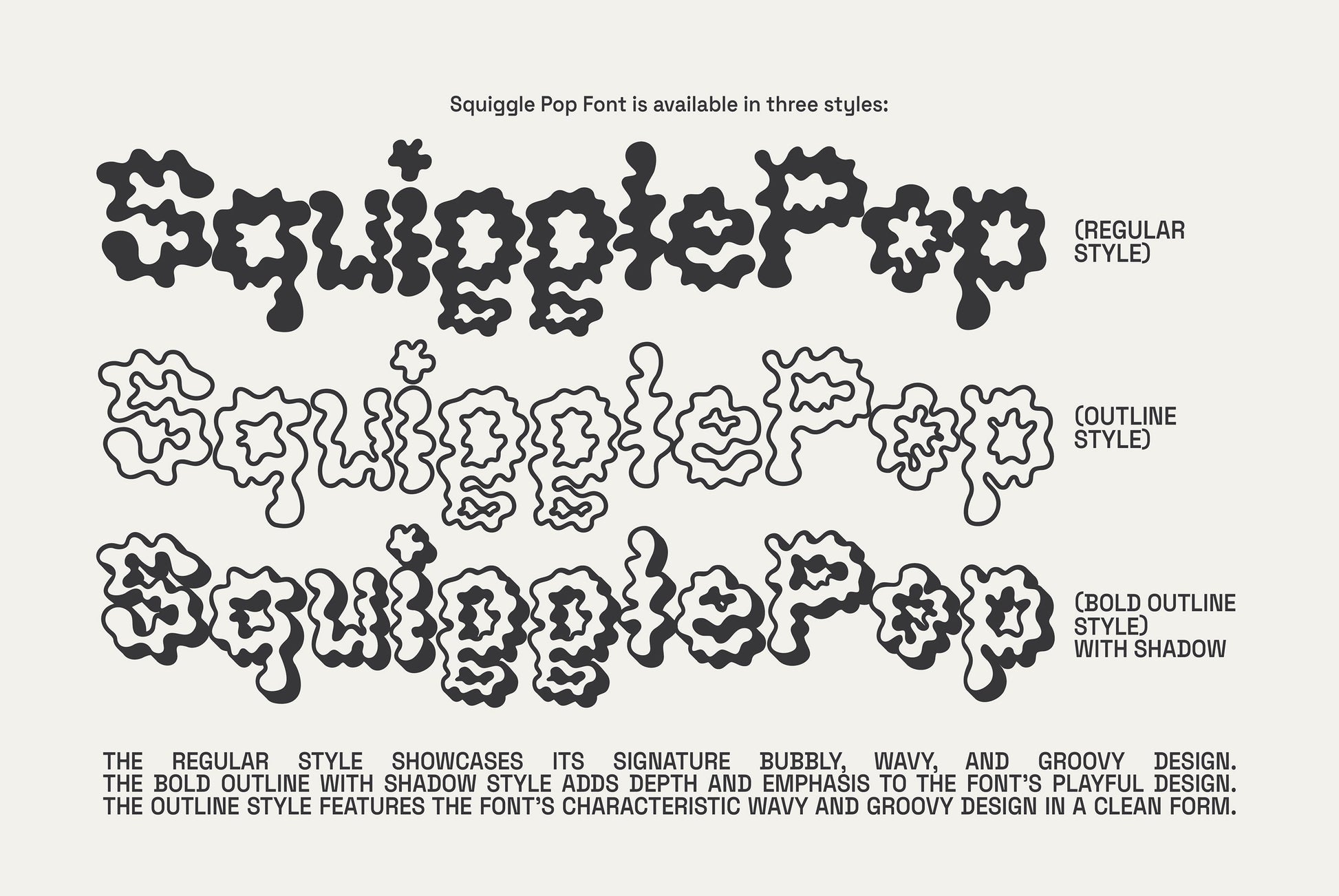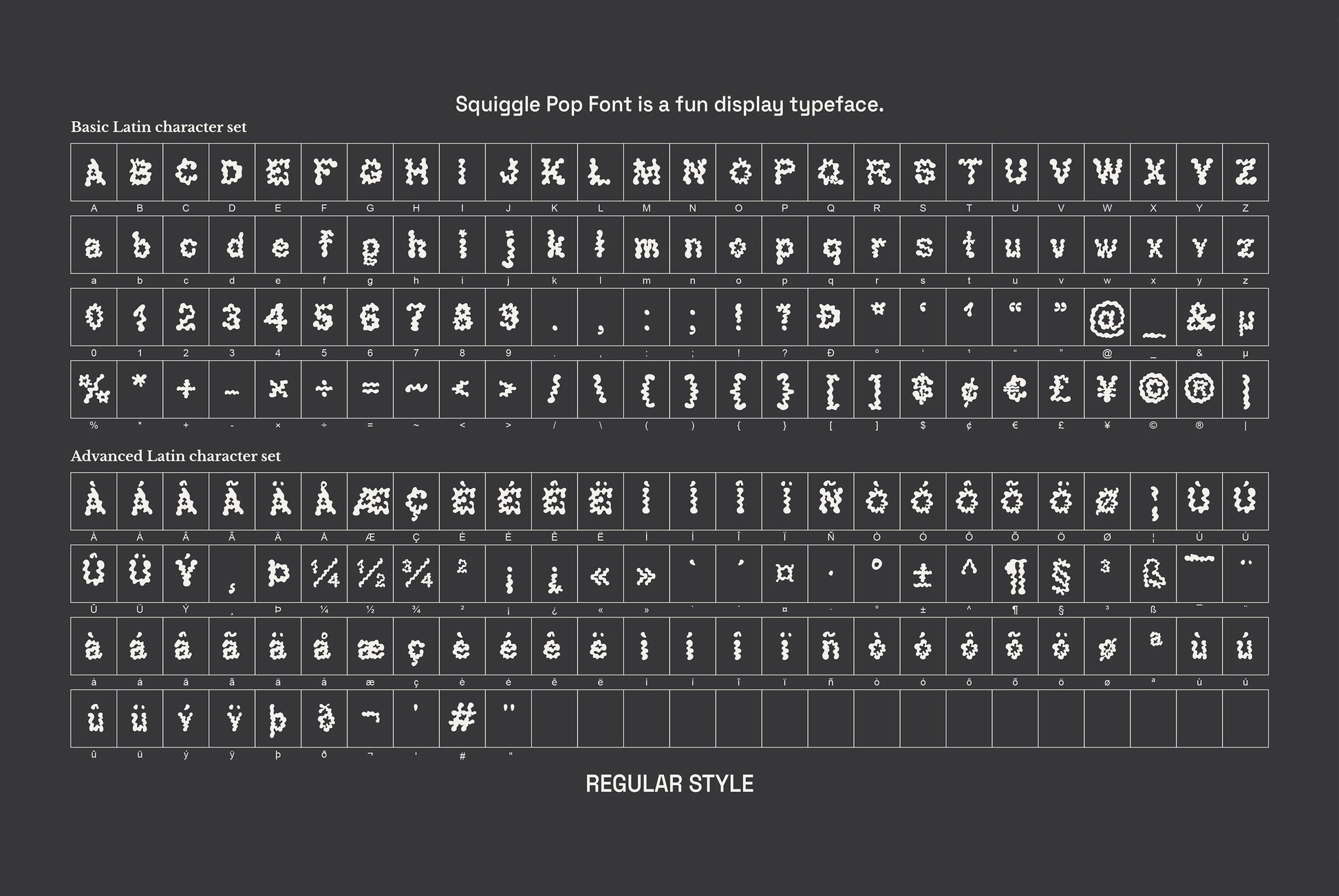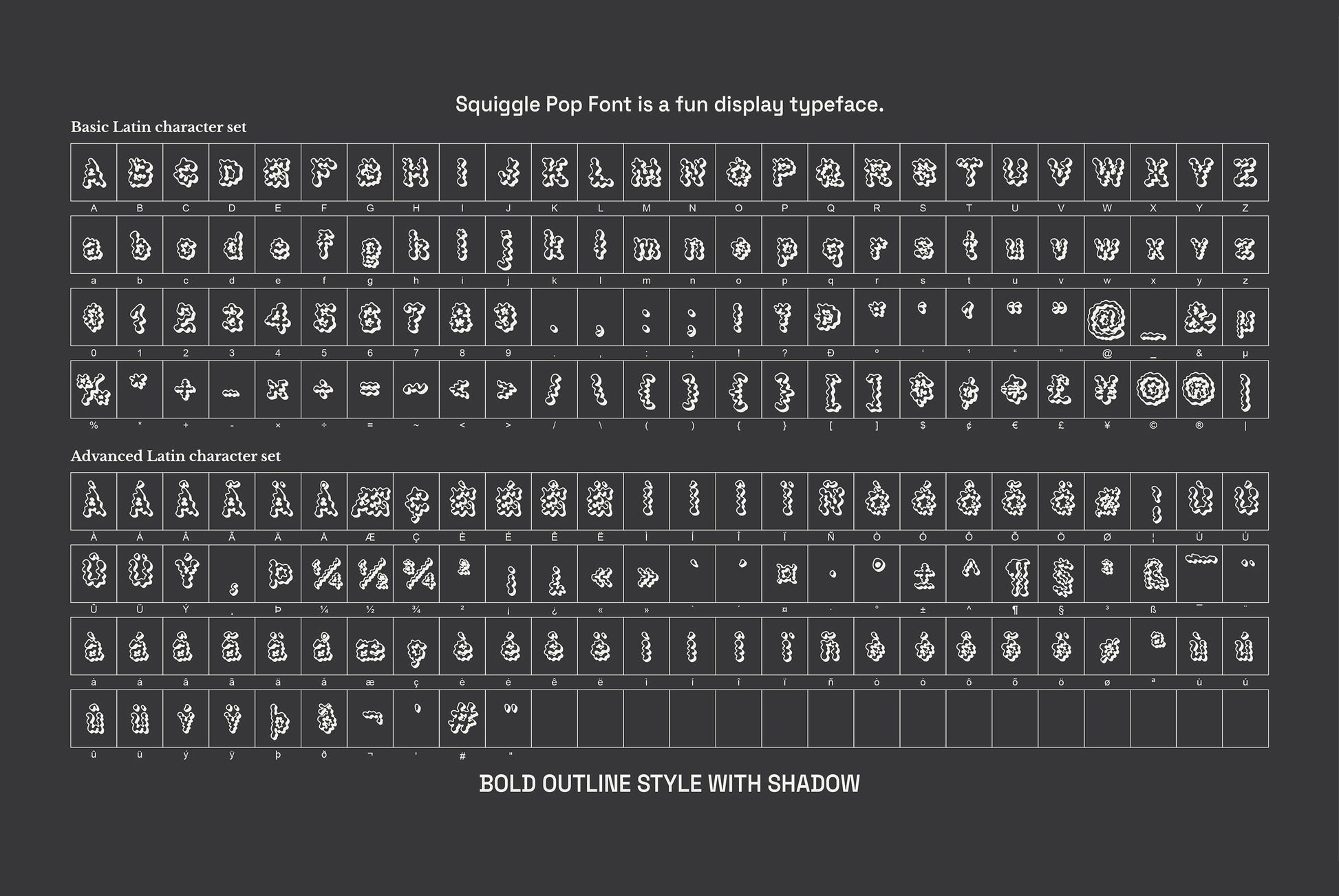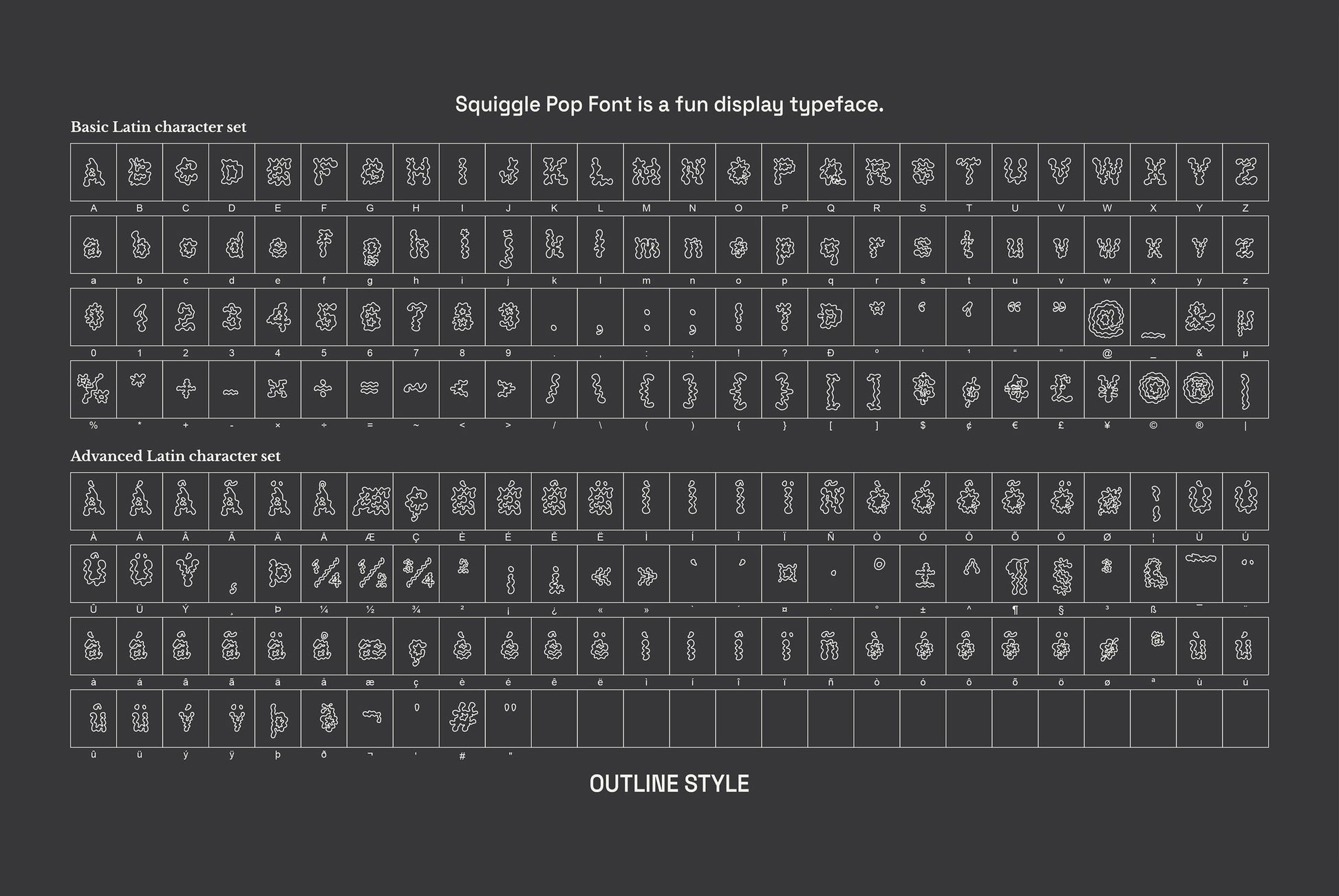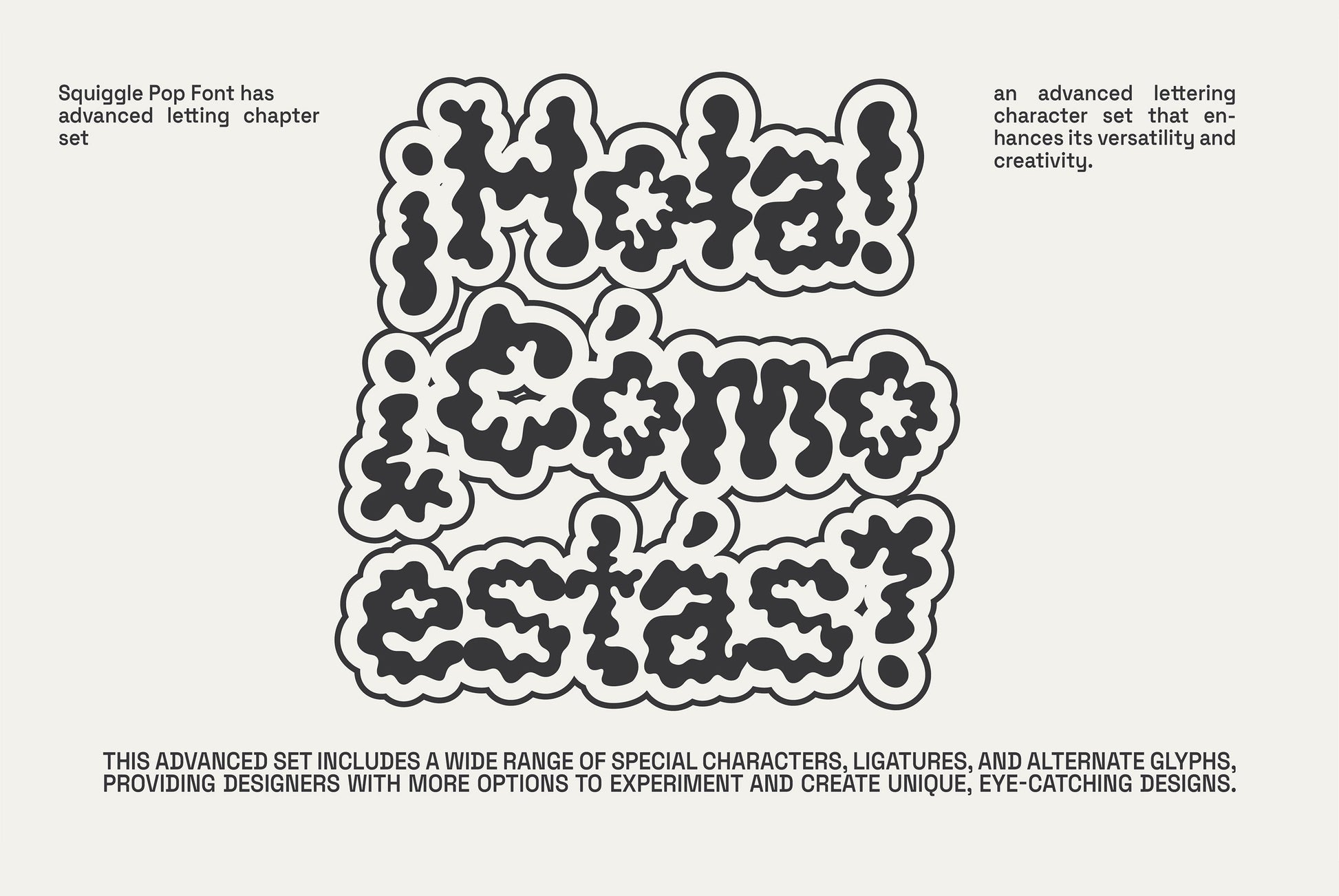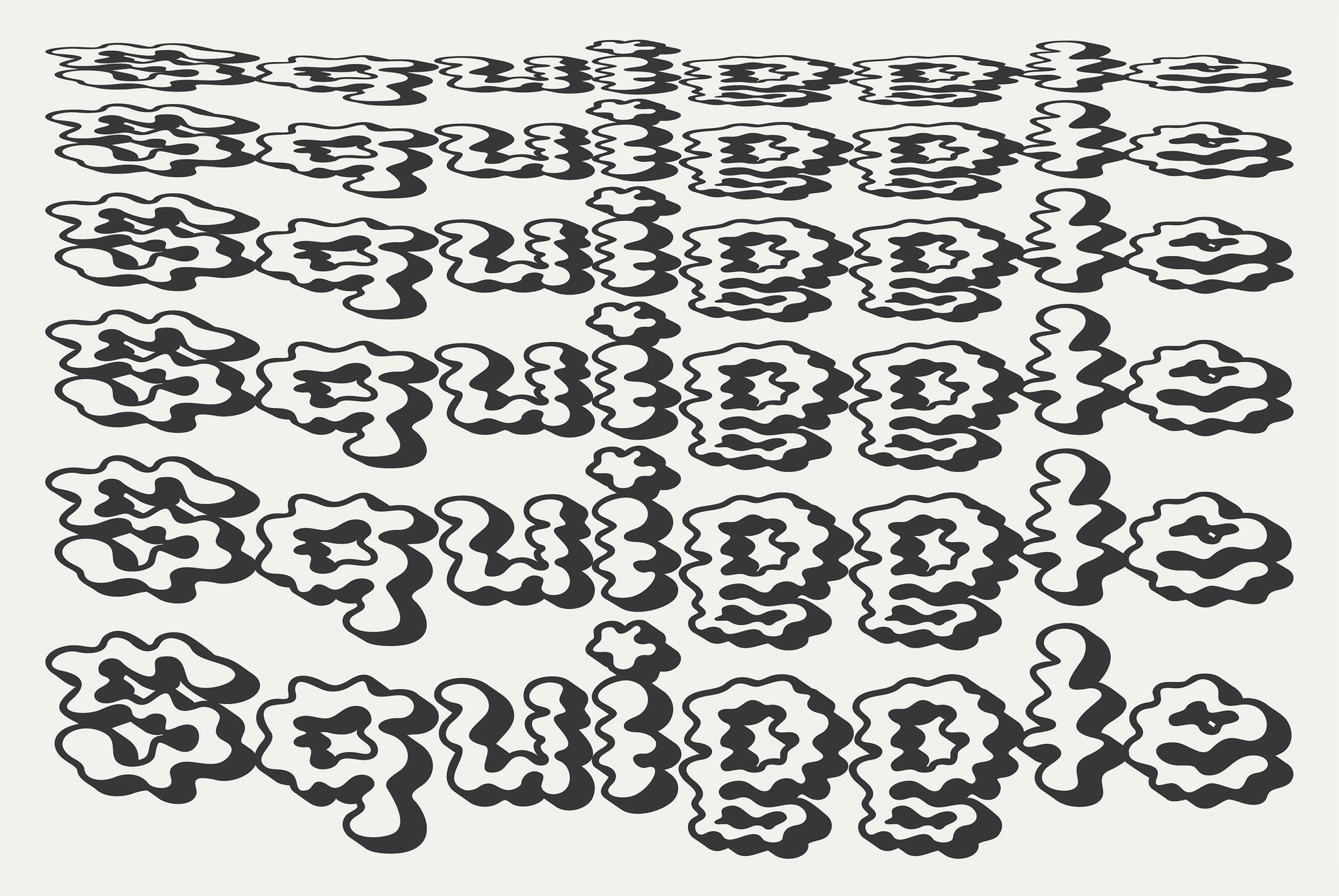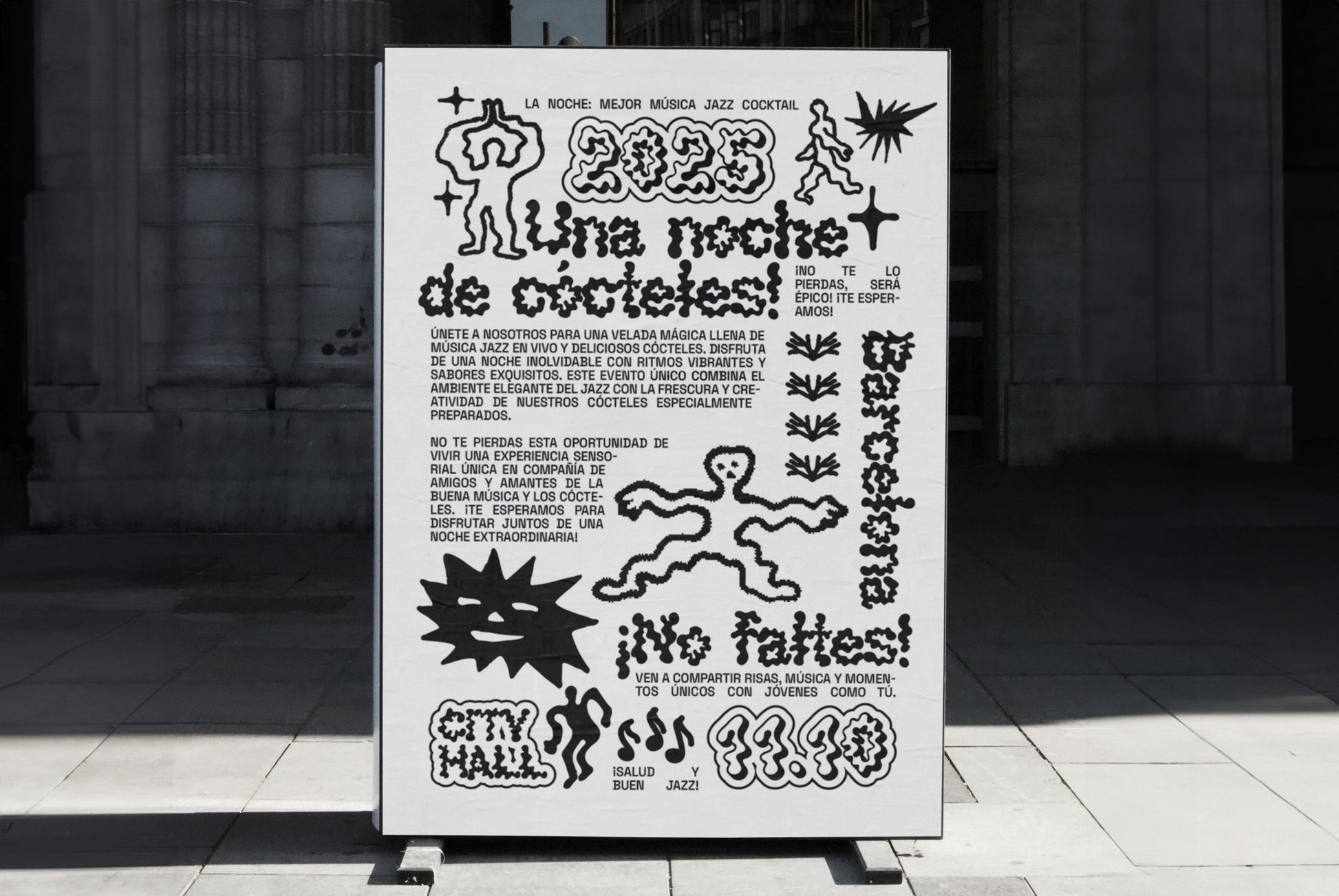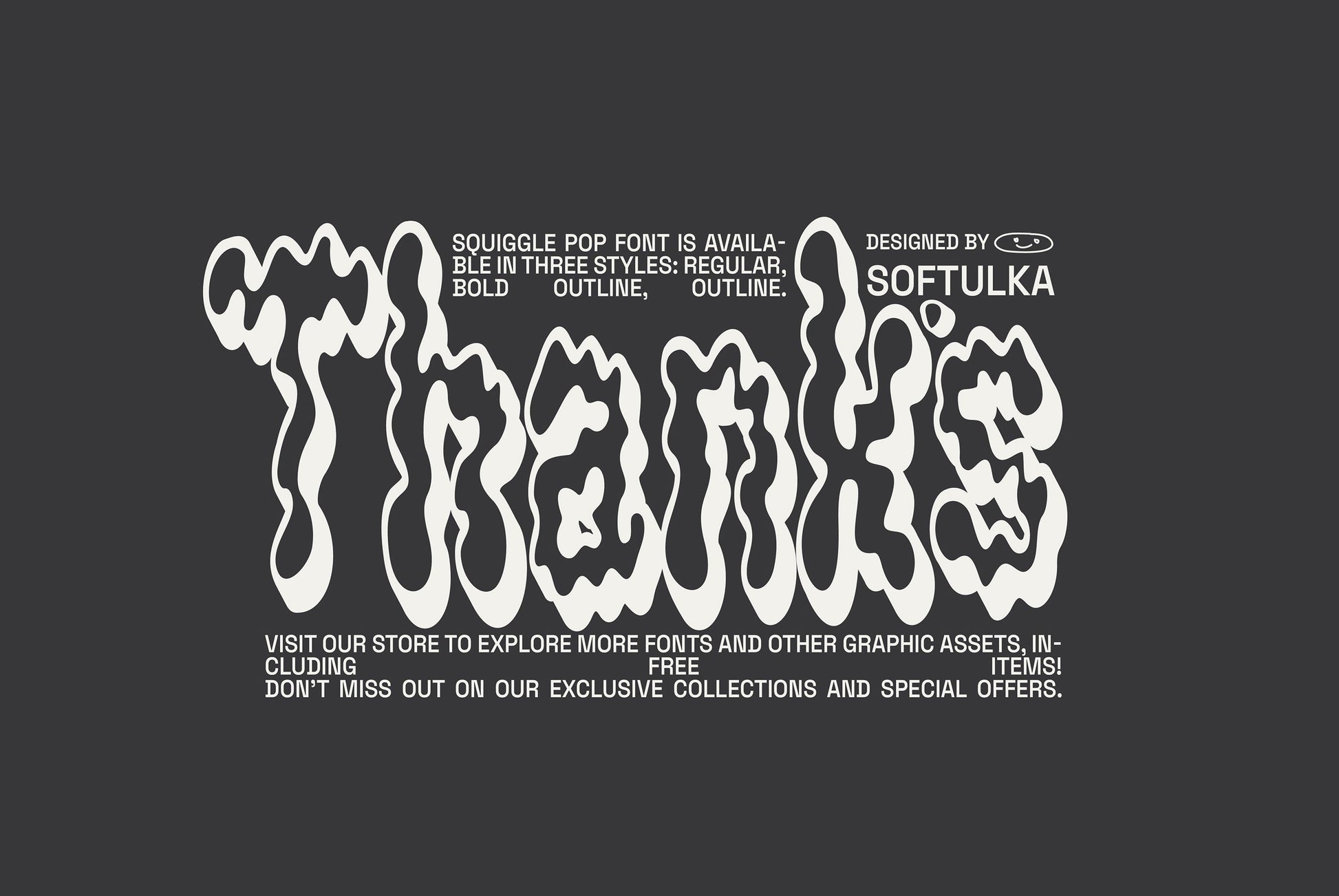
Squiggle Pop Font is a fun display typeface featuring a bubbly, wavy, and groovy design. Perfect for adding a playful touch to your projects, this versatile font comes in three styles: regular, bold outline with shadow, and outline. This decorative font works perfectly for bold titles, festival posters, as a graphic element for bright T-shirts or hoodies, or even backgrounds! This weird and ugly typeface likes to experiment with spacing and additional graphic elements. Please, don't hold back on your bold modern ideas! ✦ You will receive: ✦